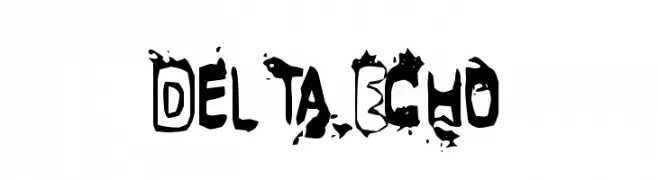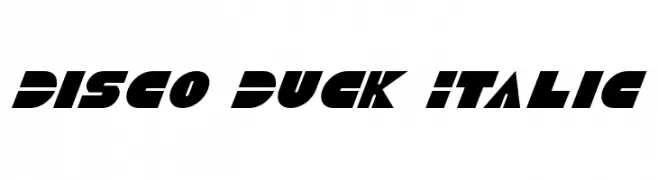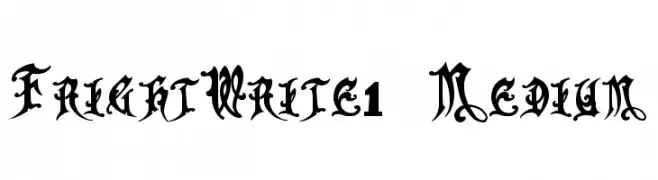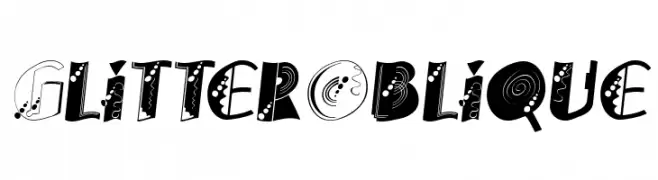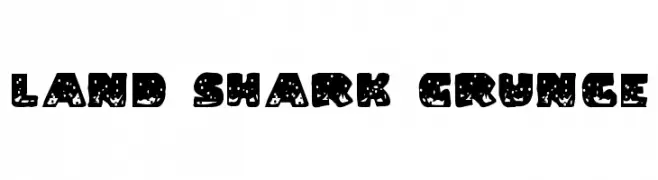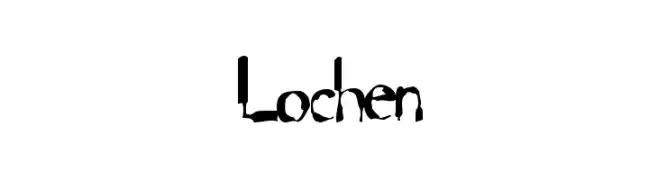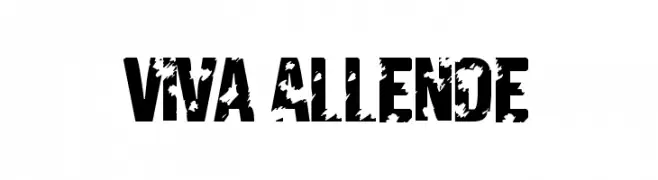
A bold, grunge-style font with a distressed texture and dynamic appearance.
A bold, geometric italic font with sharp angles and dynamic style.
A bold, distressed font with a chaotic, grunge style.
A bold, distressed font with an edgy, chaotic style.
A bold, angular, and decorative font with a striking abstract design.
A bold, distressed font with a rugged, textured appearance.
A bold, artistic font with a distressed, brush-like appearance.